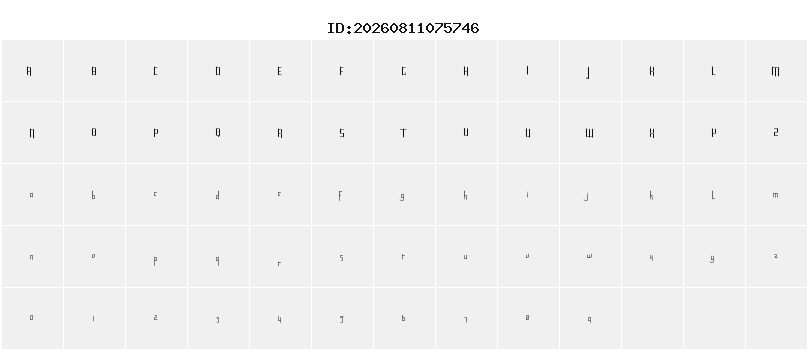
Roncial Preview
• Font Name: Roncial
• Font ID: FontStruct Roncial
• Full Font Name: Roncial Regular
• PostScript Name: Roncial
• Designer: Painajainen
About Roncial.ttf
Roncial.ttf is a modern, elegant sans-serif font designed for ultimate readability and visual harmony. Perfect for branding, headlines, web design, and print materials.